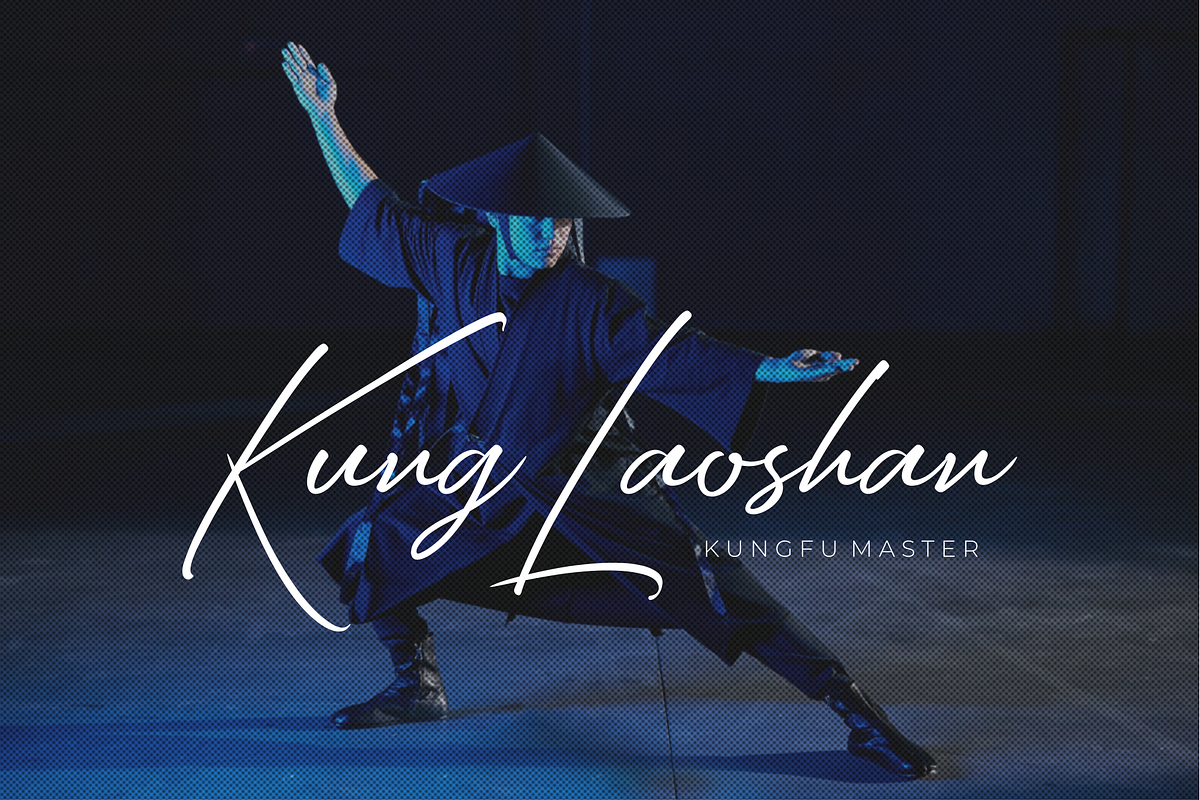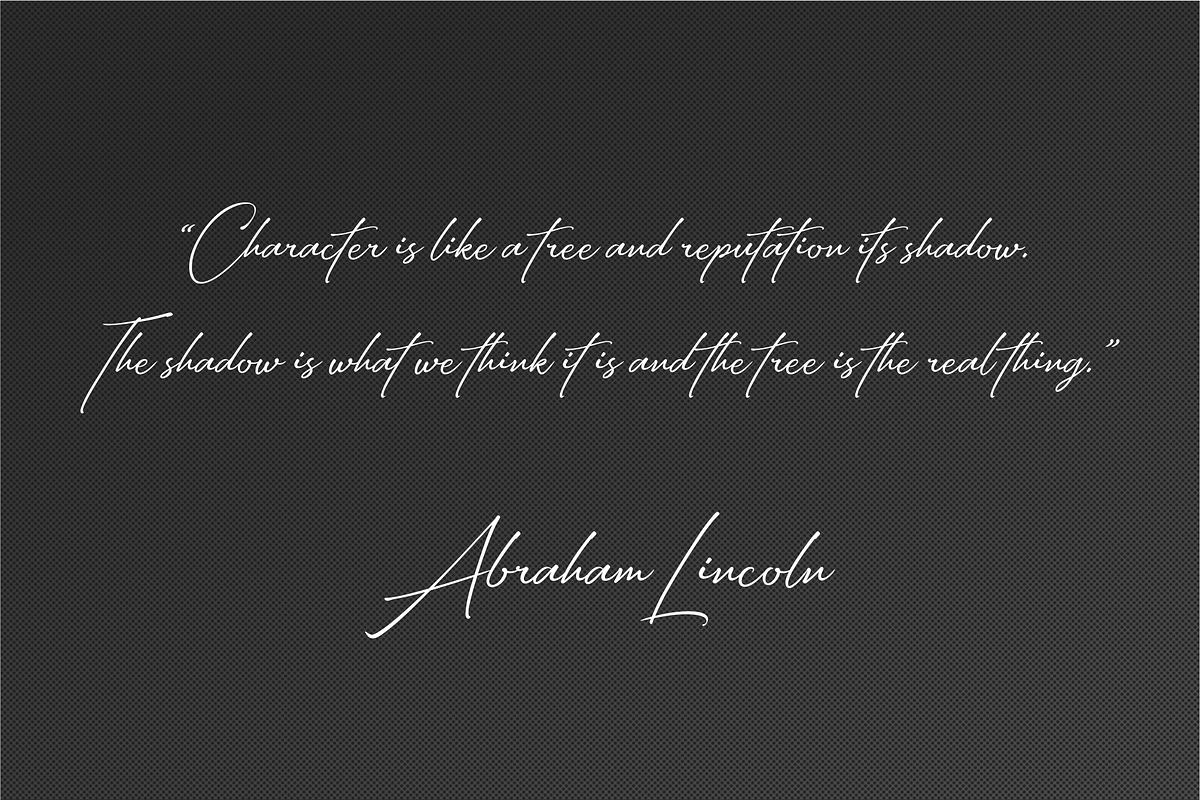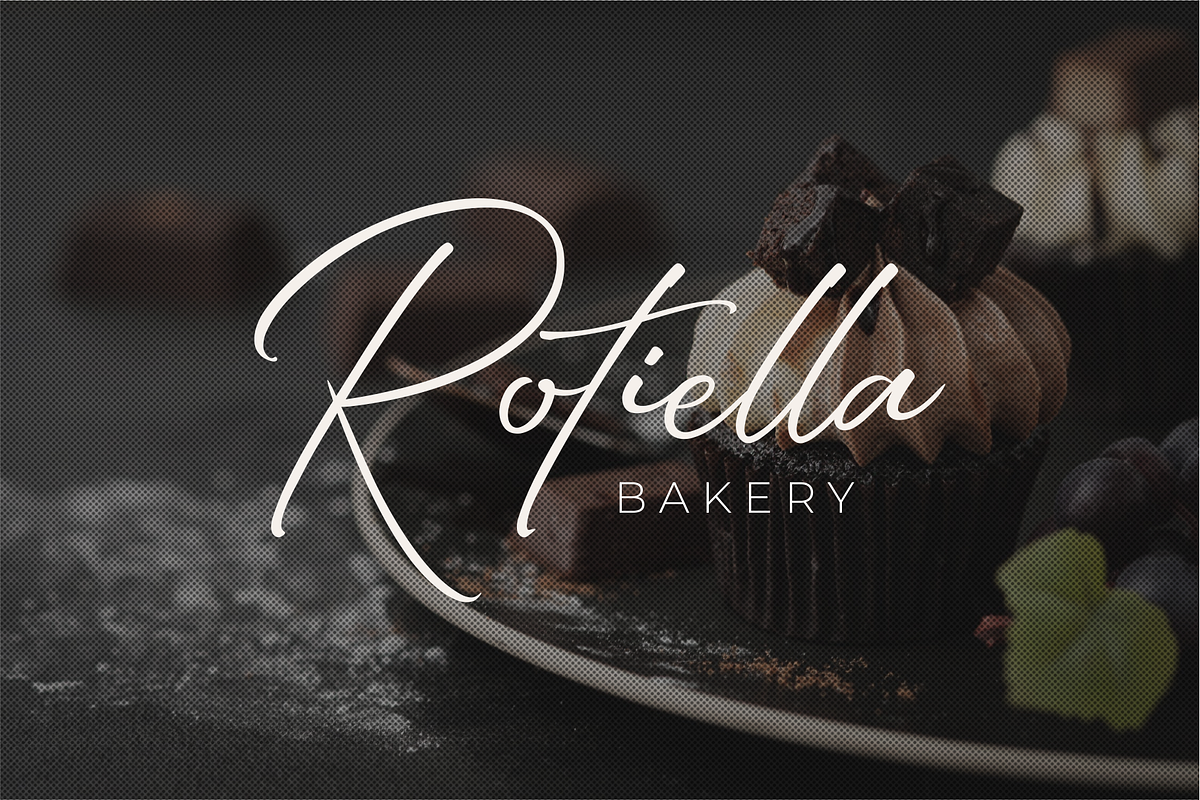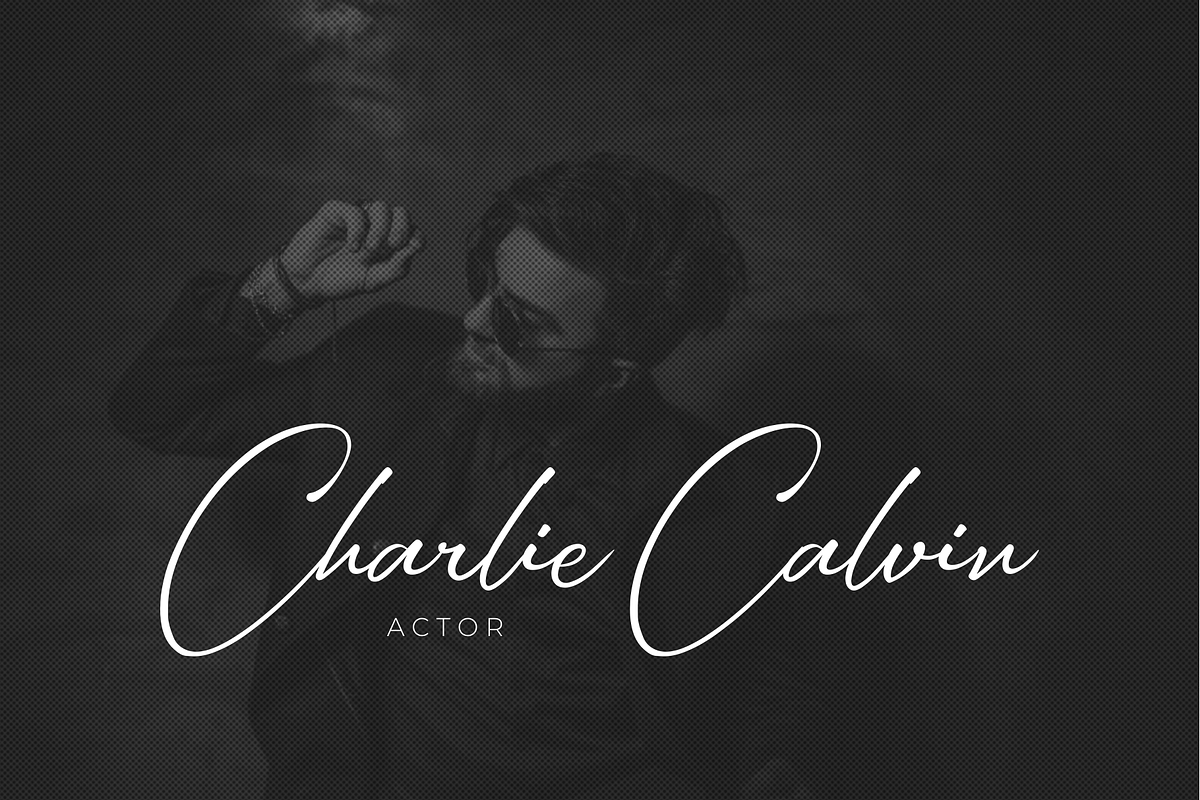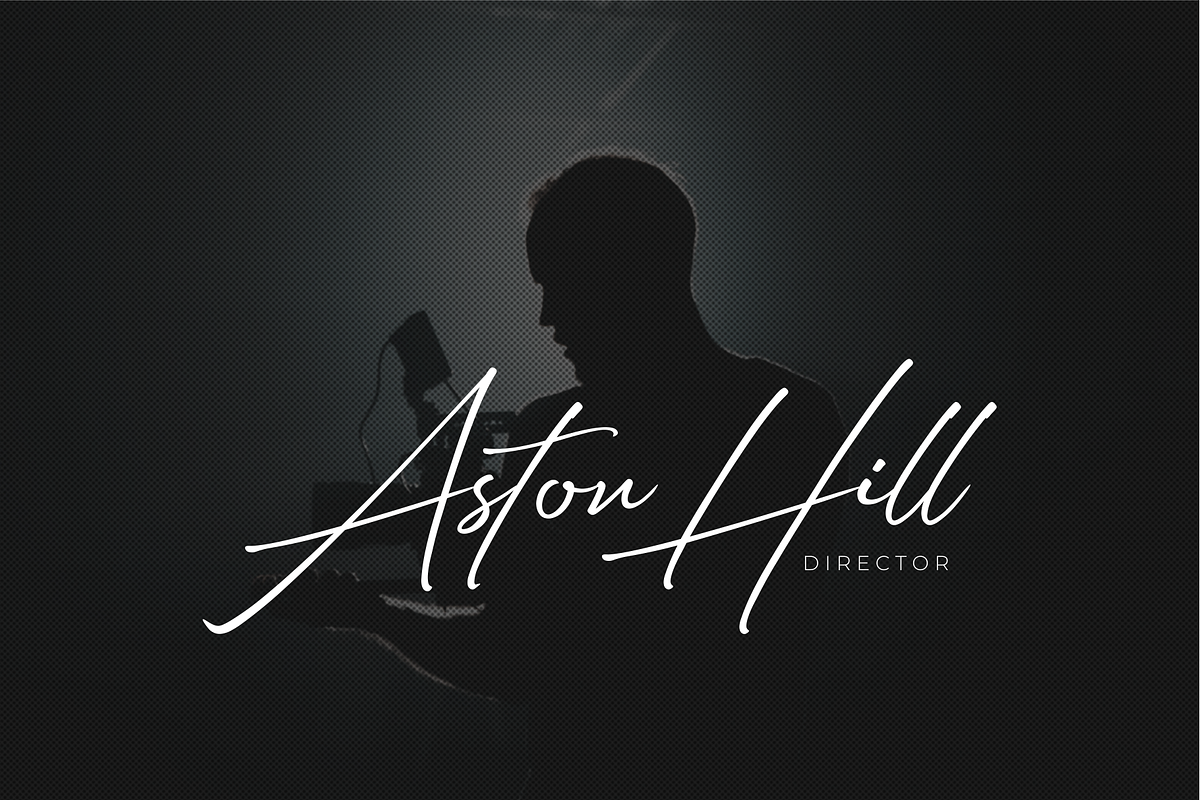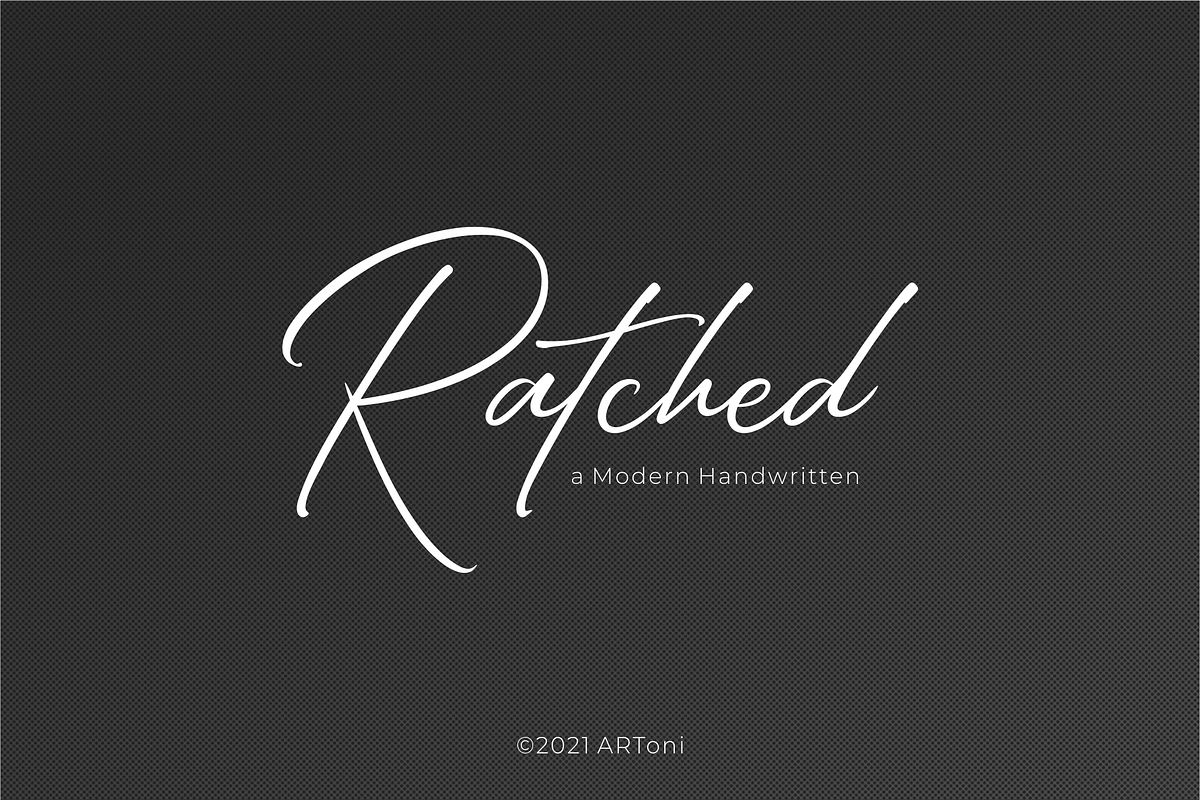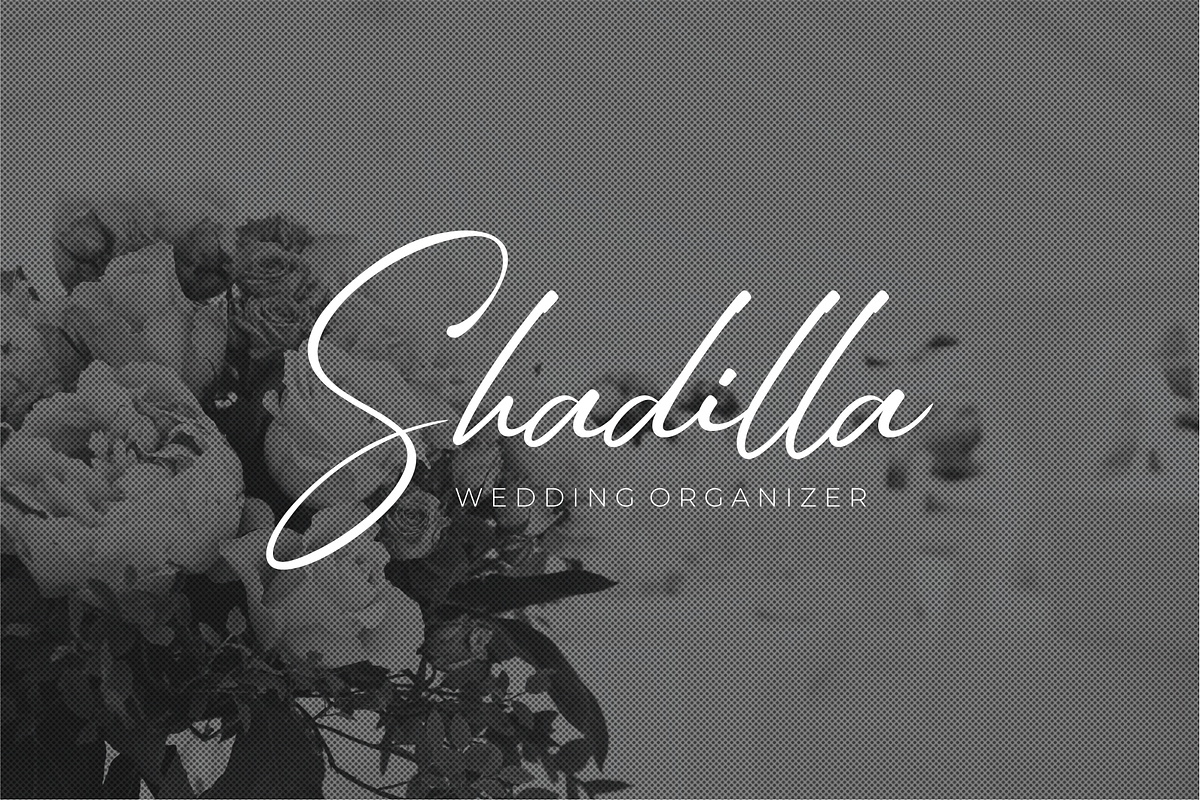
Ratched
Ratched is a delicate and elegant handwritten font. Its distinct and well balanced letters make this font a masterpiece. Fall in love with its incredibly versatile style and use it to create spectacular designs!